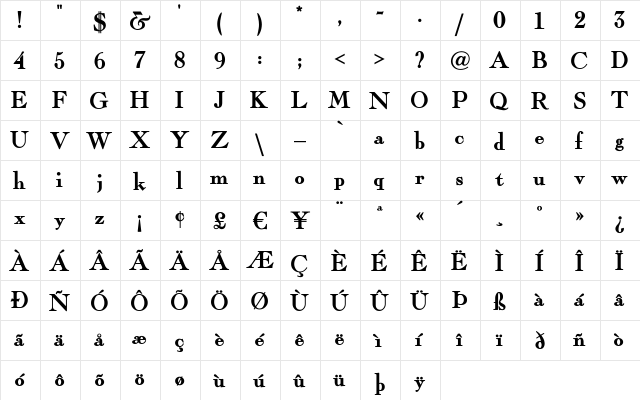
FairfaxStation Regular
Design Context for FairfaxStation Typeface
FairfaxStation takes a measured approach to typography — its balanced proportions and neutral character make it a reliable workhorse for both digital and print work.